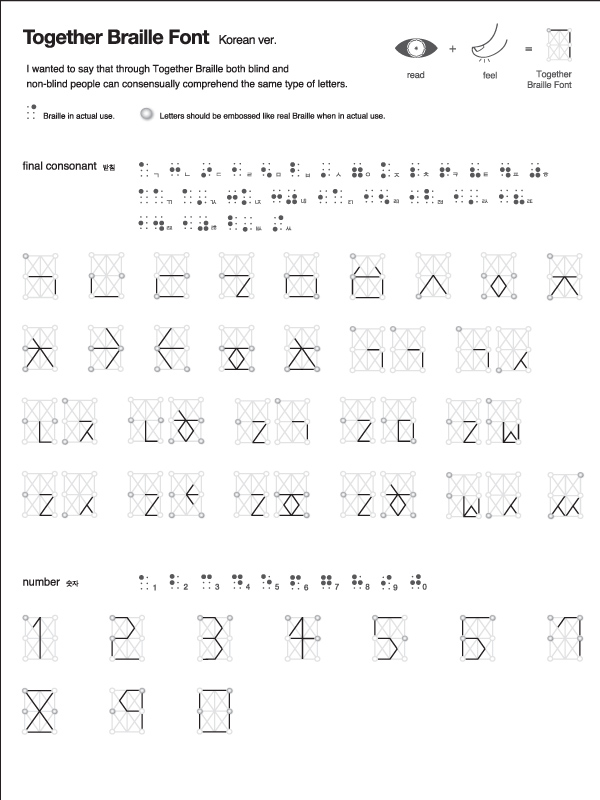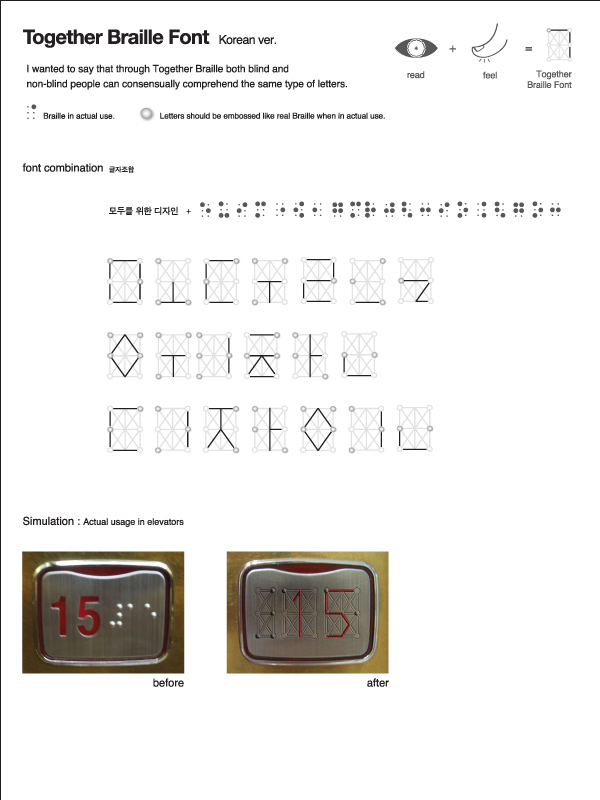
together braille font
design for all
together braille font
by sun kyung park from korea
designer's own words:
The "Together Braille" font is a font comprehensible to both blind and non-blind people, based on the concept of universal design. Blind and non-blind people use different letters as means of communications. By developing Together Braille, I aim to open up the possibility that let it be in small public areas like the elevators, both blind and non-blind people can understand the same letters at the same time.